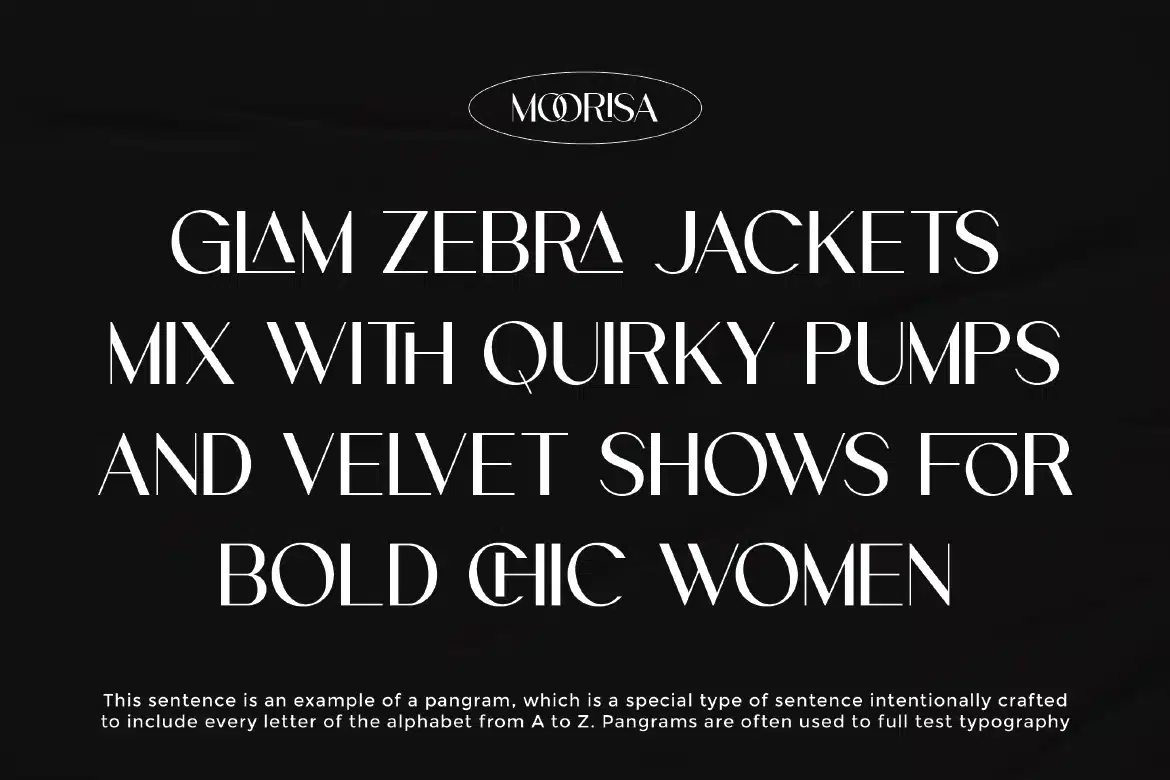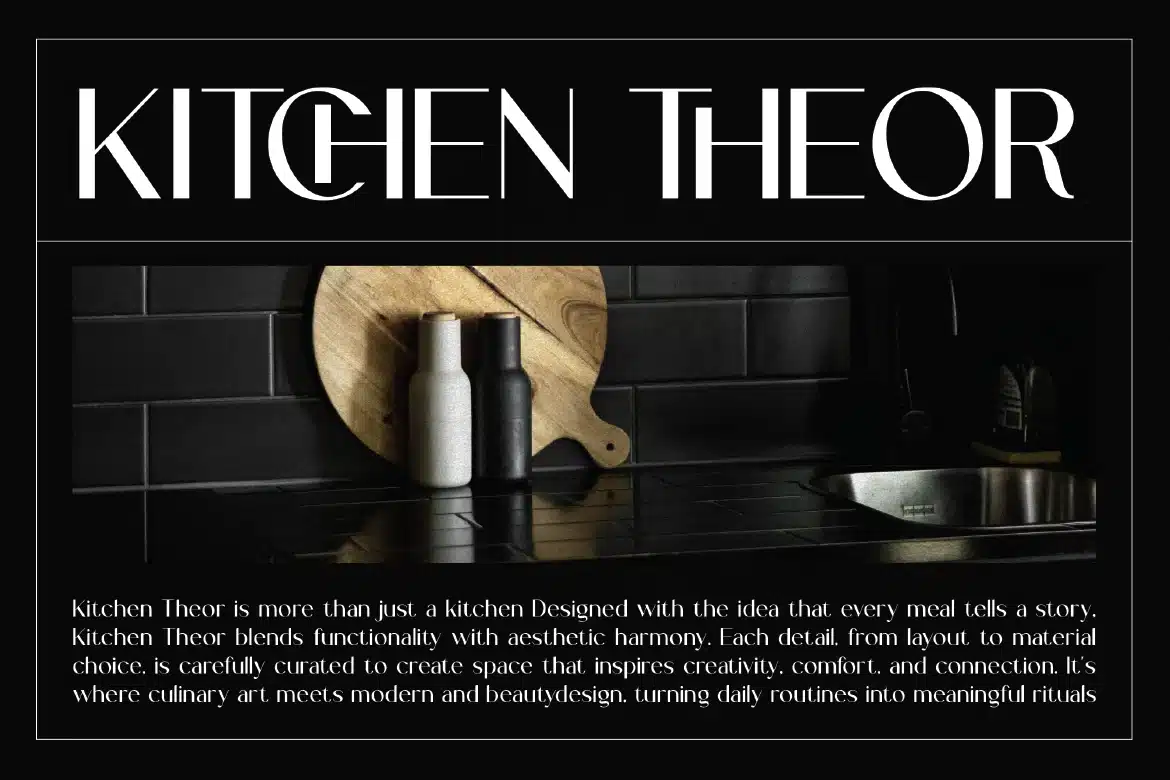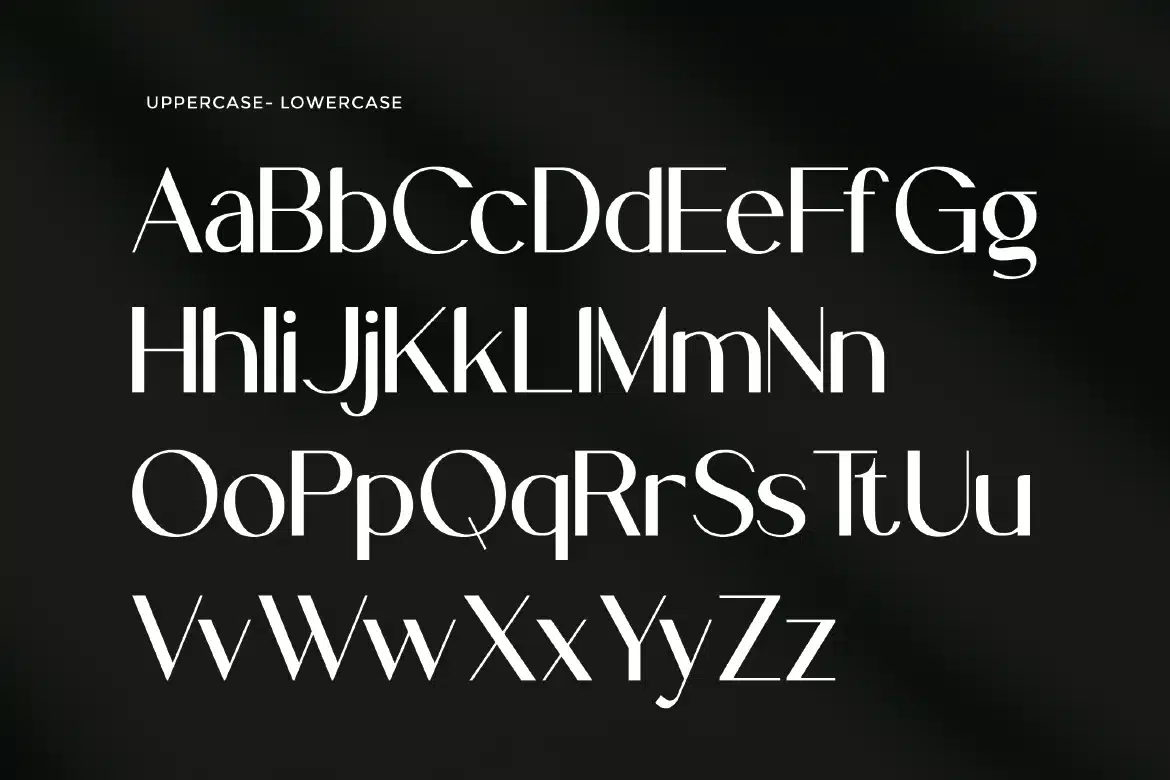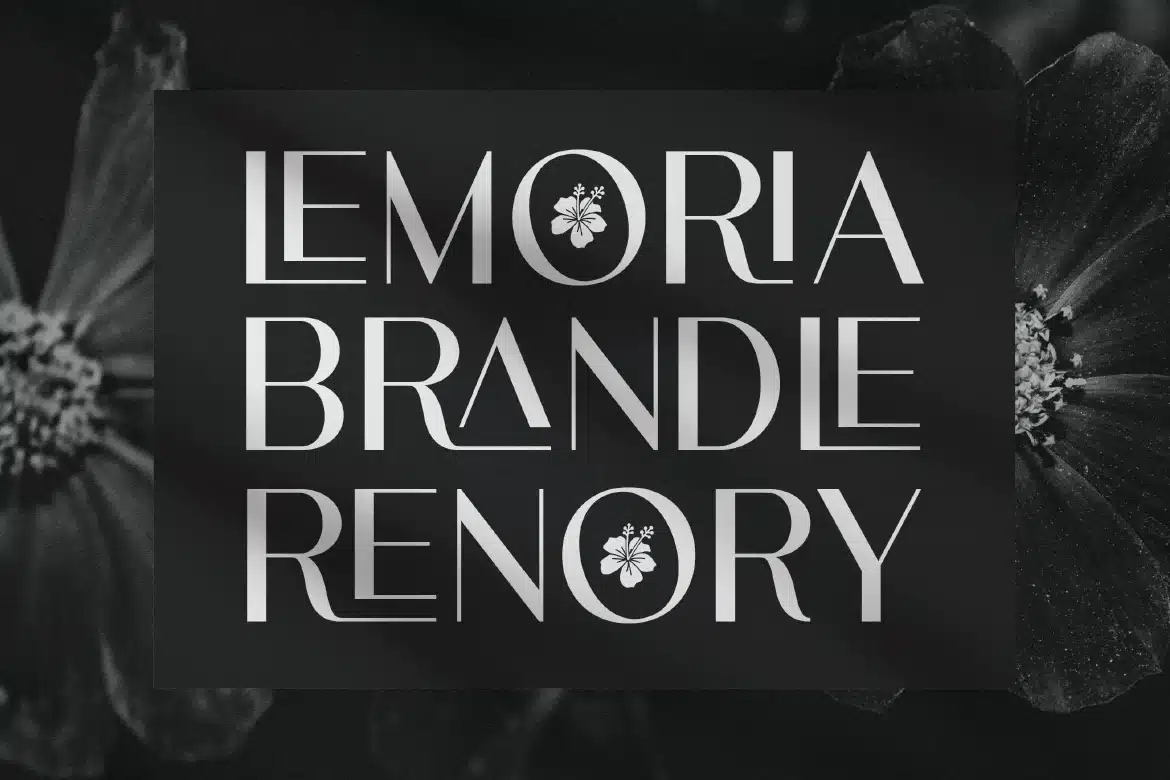
Minimalist Sans Serif Font – Moorisa
Minimalist Sans Serif Font - Moorisa
Moorisa is a modern and minimalist sans serif font designed to deliver a clean, refined, and contemporary typographic style. Featuring elegant serif details, balanced proportions, and smooth letterforms, Moorisa creates a sophisticated look while maintaining simplicity and clarity. The font blends modern design principles with subtle sans serif characteristics, resulting in a typeface that feels stylish, professional, and versatile. Its minimalist structure allows it to work beautifully across both large display text and refined editorial layouts.
Who Should Use Moorisa?
Moorisa is suitable for designers, creatives, and brands looking for a modern minimalist sans serif font that conveys elegance, clarity, and contemporary style.
Logo and brand identity design
Editorial layouts and magazine headlines
Fashion and beauty branding
Packaging and product labels
Website headers and digital design
Social media graphics
Wedding invitations and stationery
Elegant display typography